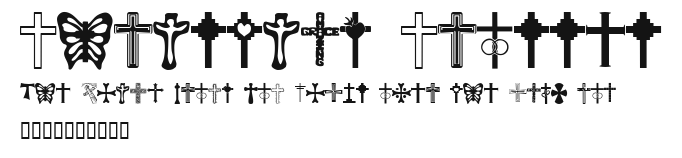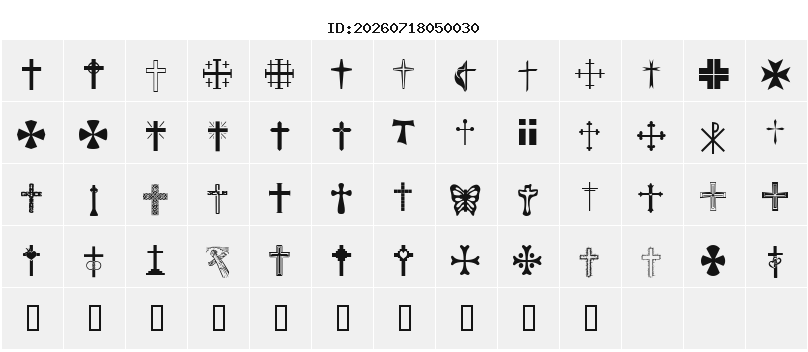
• Font Name: Christian Crosses
• Designer: Ben McGehee
• Manufacturer: UnAuthorized Type
• Description: When I was studying in Rome, I saw lots of churches. So I saw lots of crosses, too. I got really interested in the variety of crosses that churches had -- from very ornate to plain and simple. But I had never made a dingbat font, so I didn't want to try. Then I saw in the newsgroups that someone was looking for one, and no one had a good one. So I went ahead with it. Crosses mean a lot to me. It symbolizes when Jesus died for our sins. No one knows what the real cross really looked like (even though I saw the "real" cross in a church in Rome). So there are many adaptations. But they all hold the same meaning. Please only use this font in a way that is glorifying to God. In this font, I have included a wide variety of crosses. Some traditional and some not. I have included some Celtic crosses, an Assisi cross (a Greek Tau), some crosses that were cut out of wood, and some that I just thought looked neat. I would like to find more crosses, and make another font with those. If you know of any that I didn't include, but are cool, tell me about them. My e-mail is included.